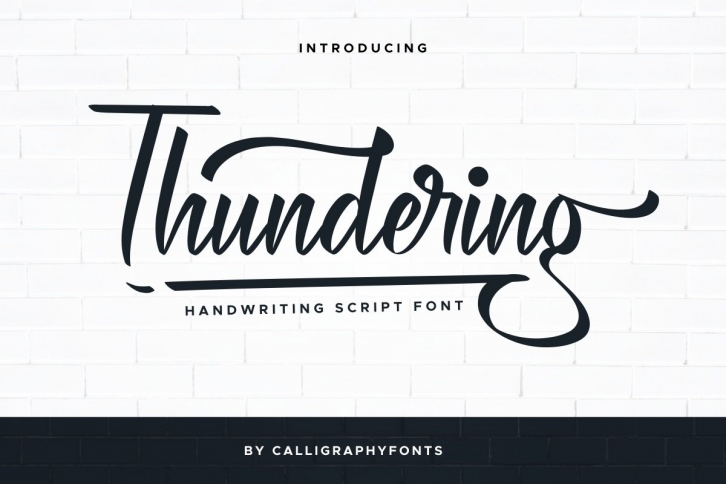
Thundering is a trendy and unique font with an authentic style. It was designed by Calligraphy Fonts and it's a great choice for creative people who need such a font. It was released on April 30, 2021 and the file size is 21.31 MB. Thundering will add an organic vibe to any design idea!